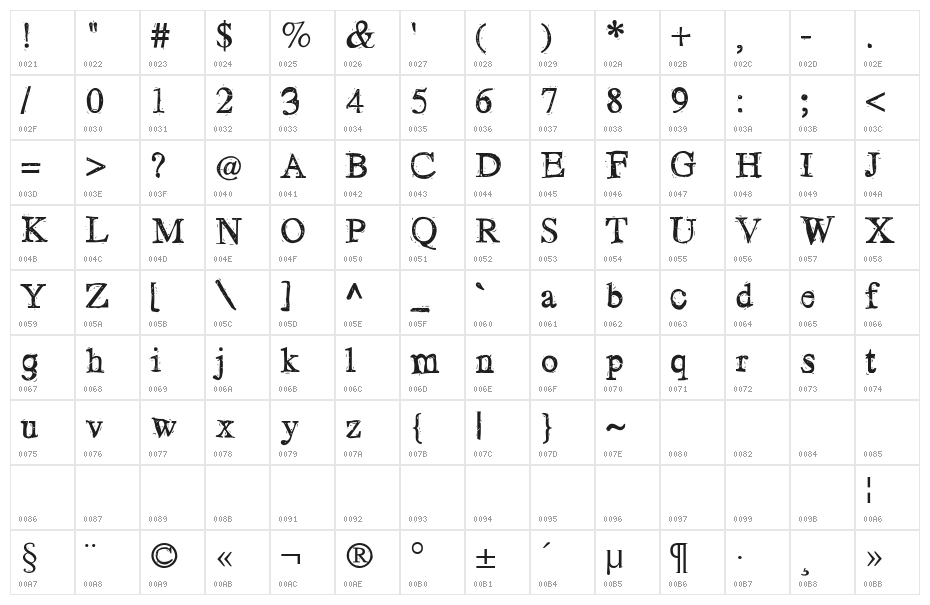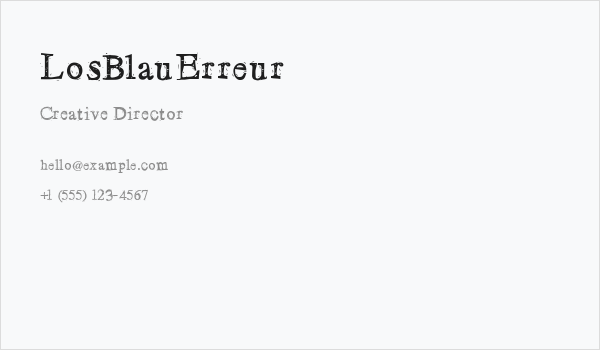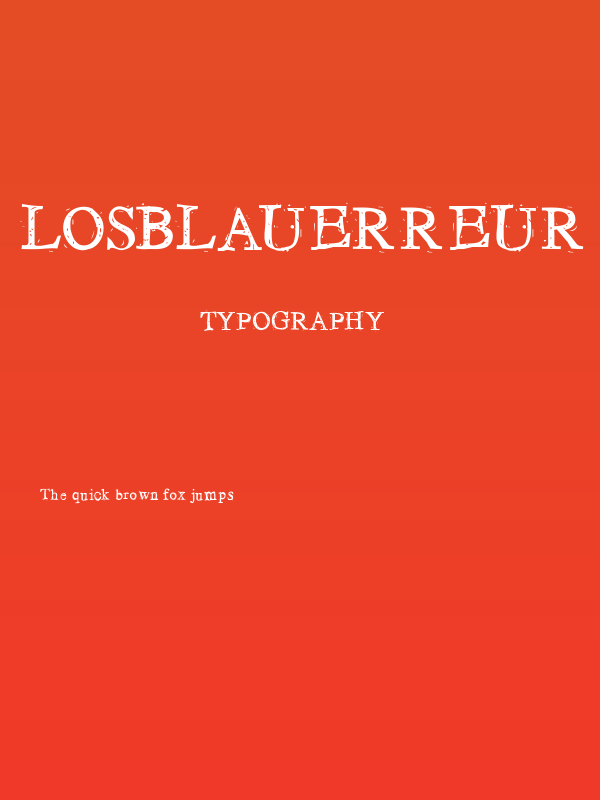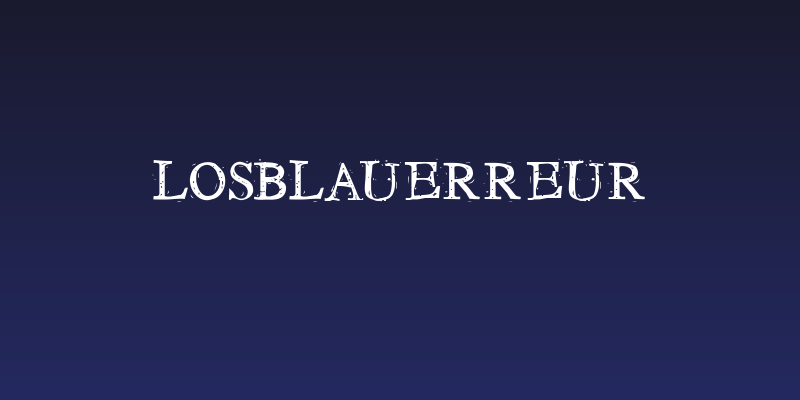
LosBlauErreur Font
LosBlauErreur Description
This font features a distressed and grungy aesthetic, characterized by irregular edges and a worn-out appearance. The letters have a bold presence with a slightly rough texture, giving them a unique, vintage feel. The uppercase and lowercase letters maintain a consistent style, while the numbers and special characters complement the overall design. This font is ideal for projects that require a rugged, handcrafted look, such as posters, album covers, or themed event invitations. The uneven strokes and distressed details add a layer of depth and character, making it stand out in any design.
| Proposed Projects | Posters, album covers, themed event invitations, vintage branding. |